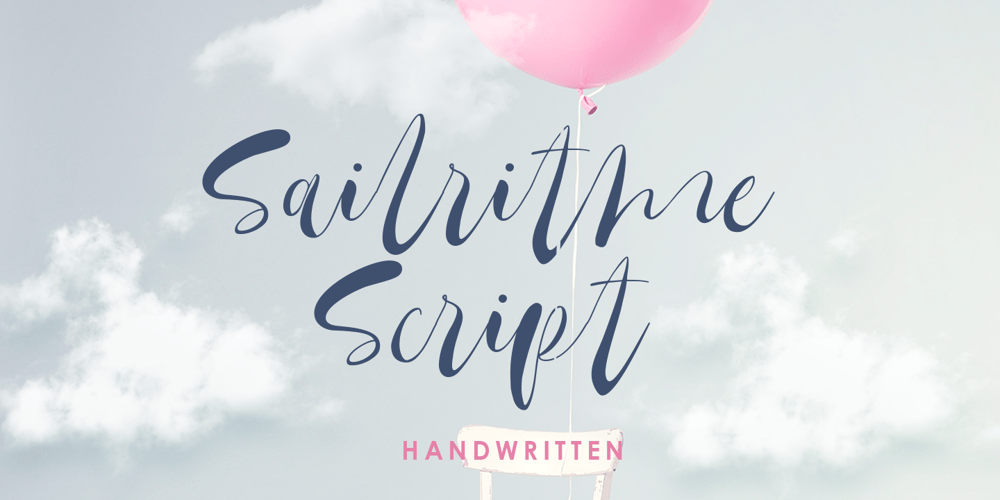
Sailritme Font Family was designed by Hendry Juanda and published by Letterhend. Sailritme contains 1 styles and family package options. Introducing, Sailritme. A handwritten script. This font perfectly made to be applied especially in logo, and the other various formal forms such as invitations, labels, logos, magazines, books, greeting / wedding cards, packaging, fashion, make up, stationery, novels, labels or any type of advertising purpose.Features : uppercase & lowercase numbers and punctuation multilingual PUA encoded We highly recommend using a program that supports OpenType features and Glyphs panels like many of Adobe apps and Corel Draw, so you can see and access all Glyph variations.